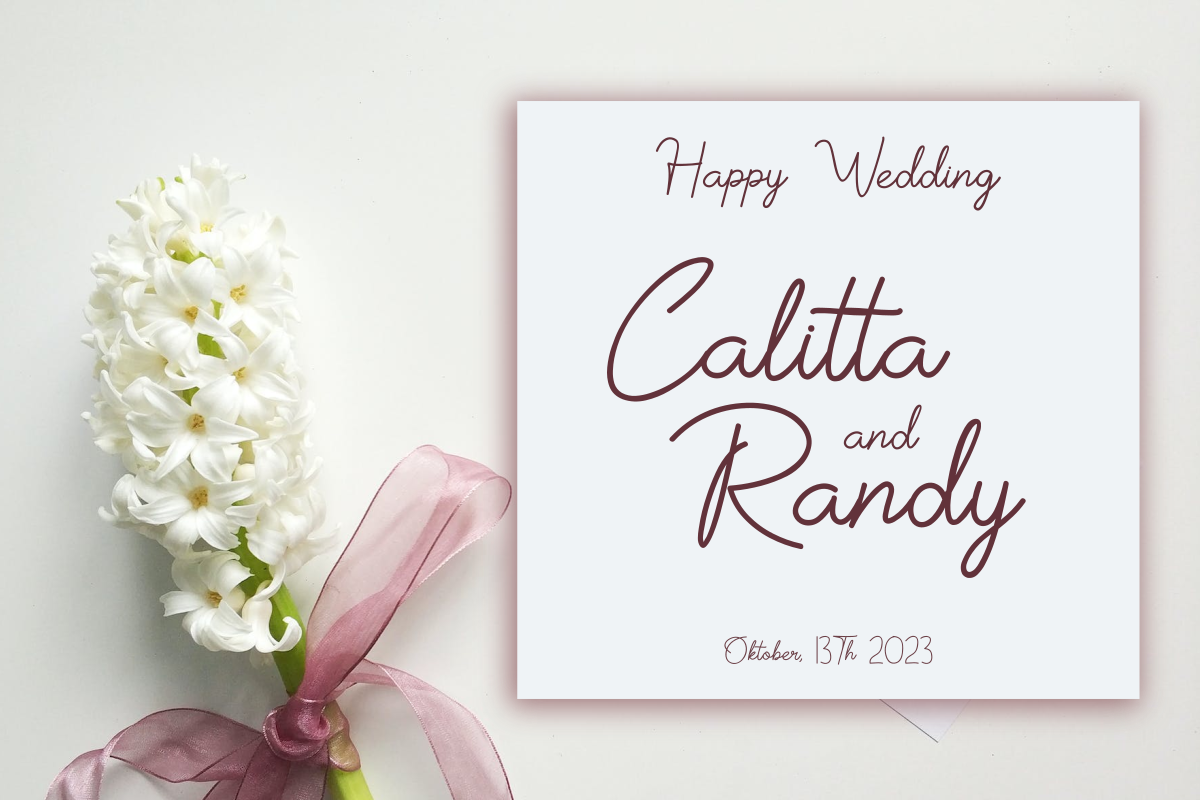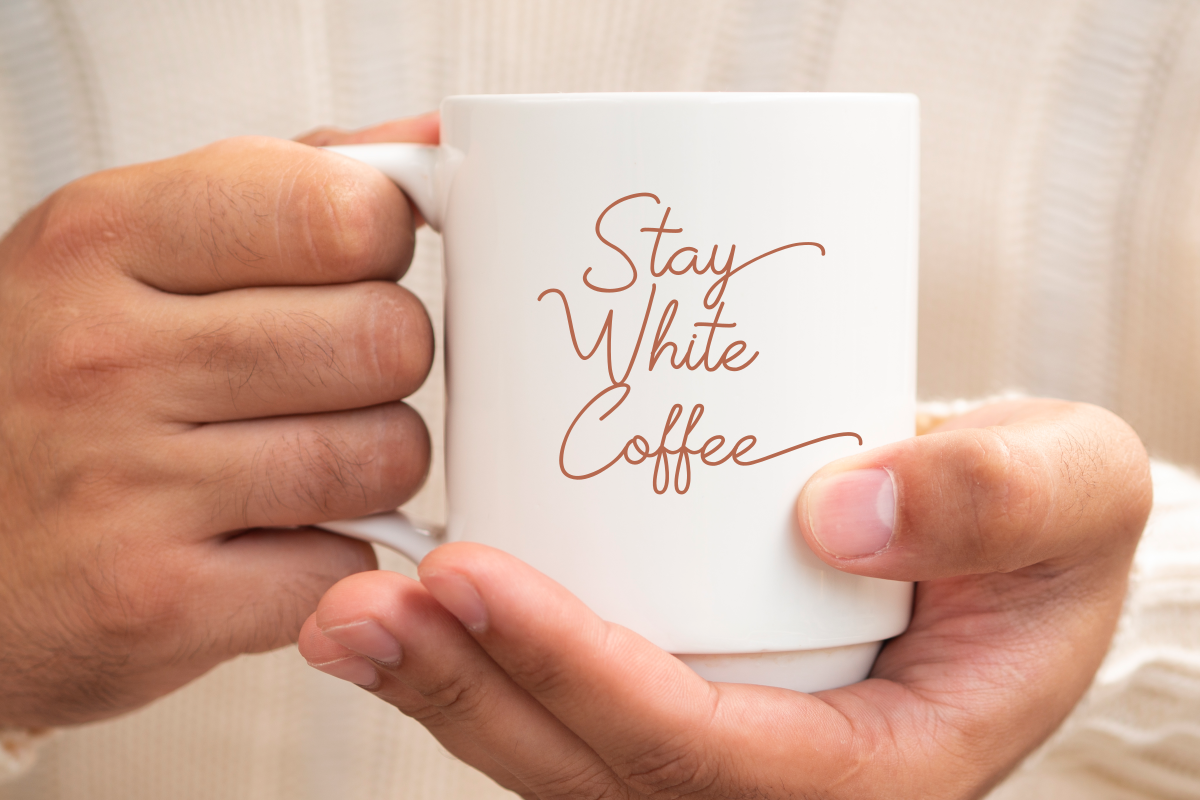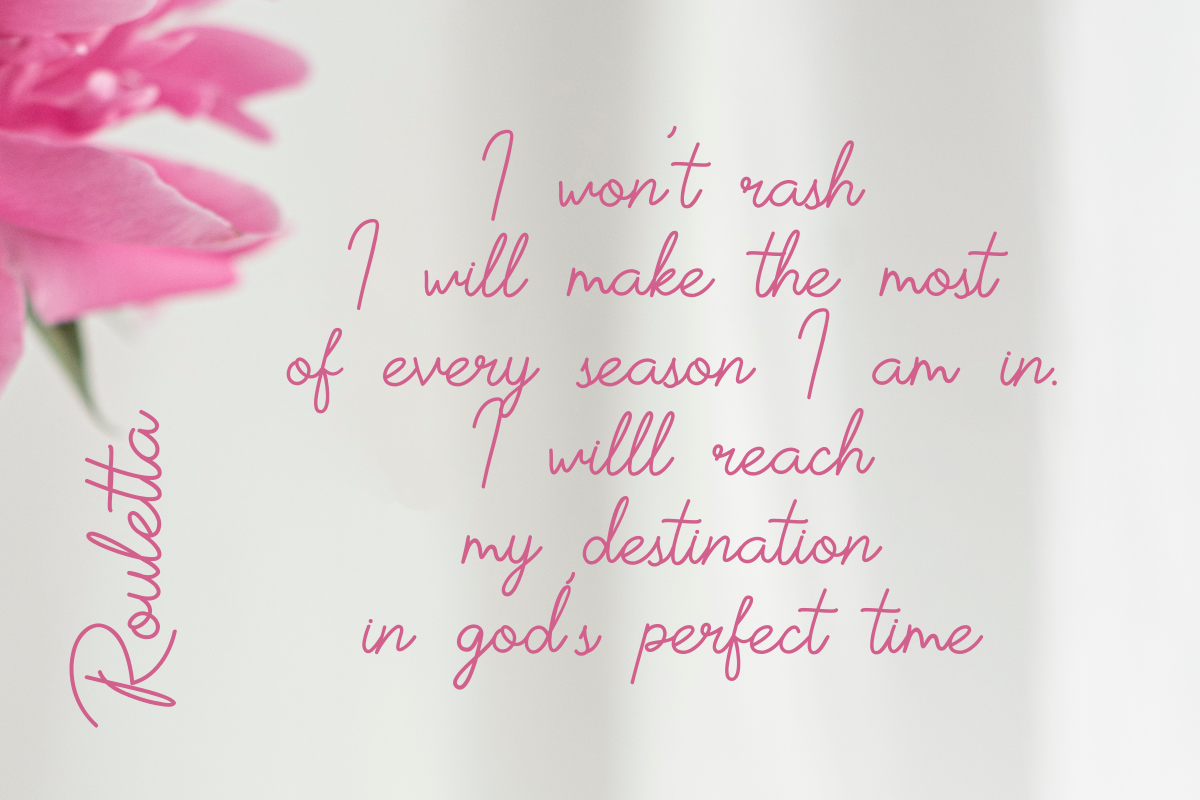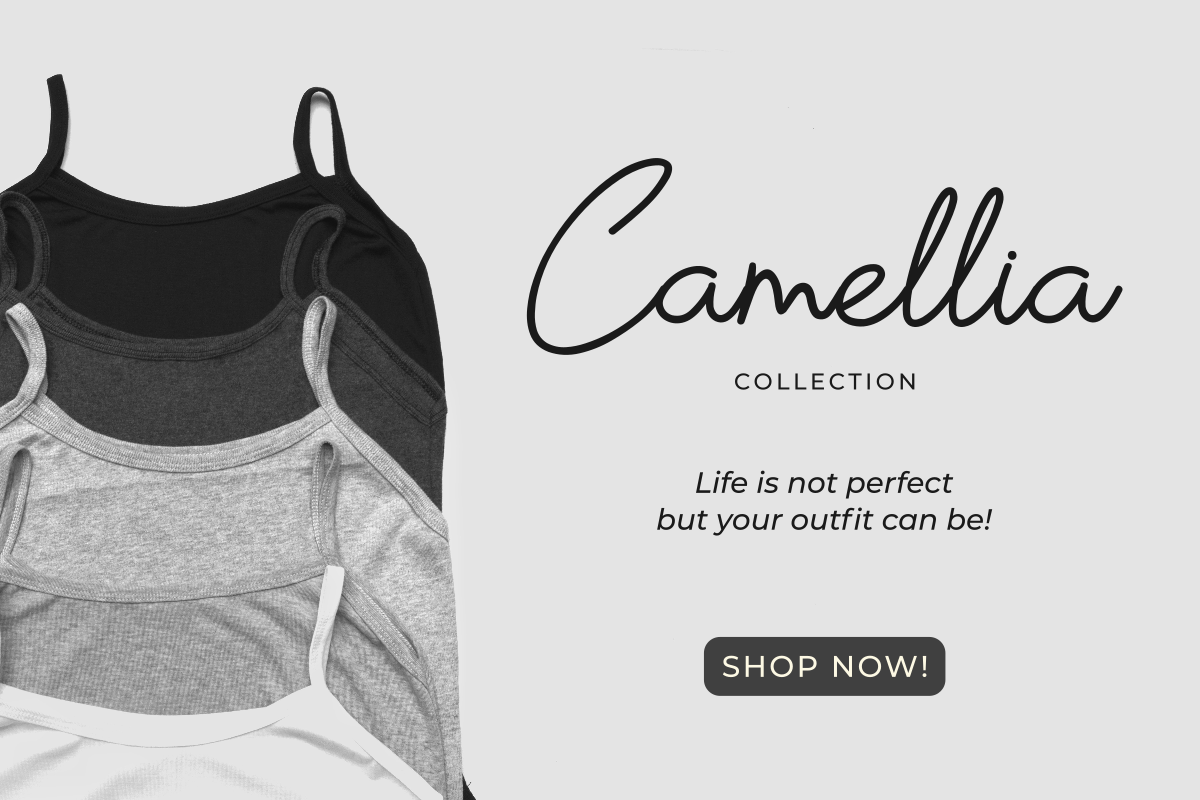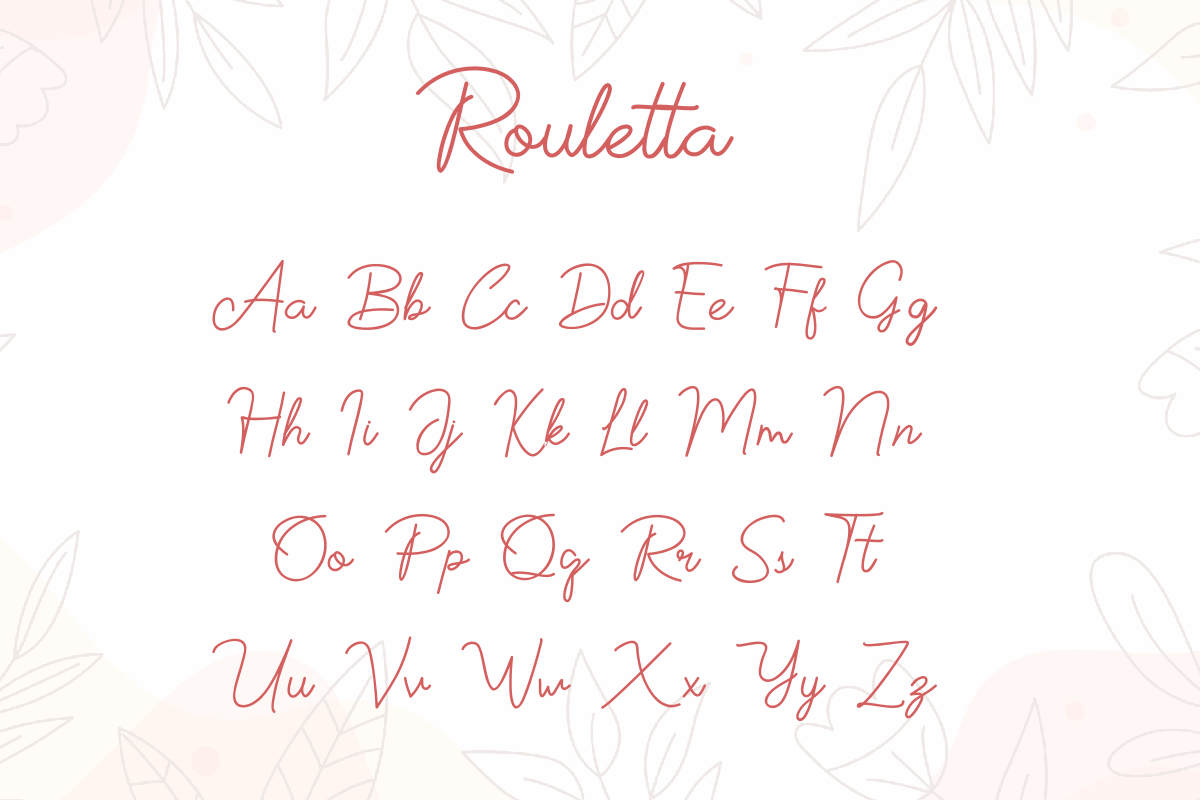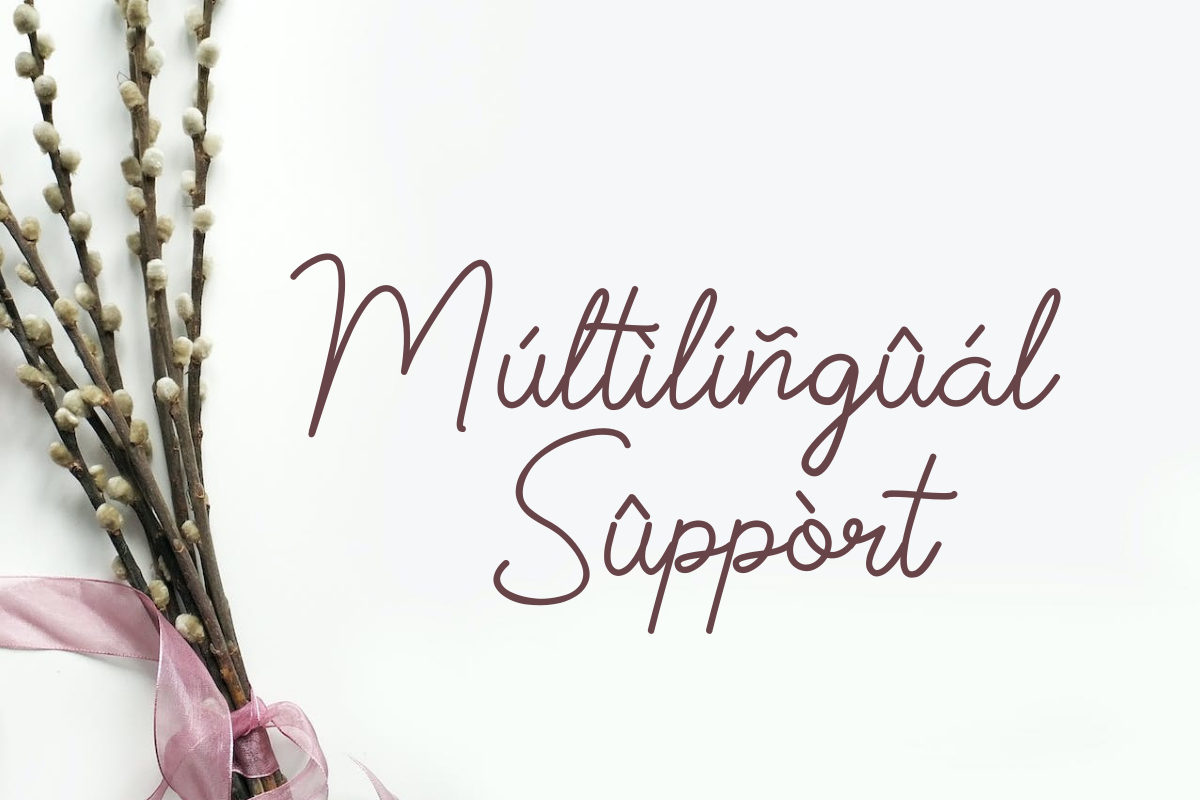
Rouletta
Rouletta is an elegant and natural script that can bring authenticity and sophistication to your projects. With perfect curves and natural letter shapes, enhance your design with the charming Rouletta font, ideal for branding, invitations, logos, or any creative endeavor that requires a natural and elegant touch.